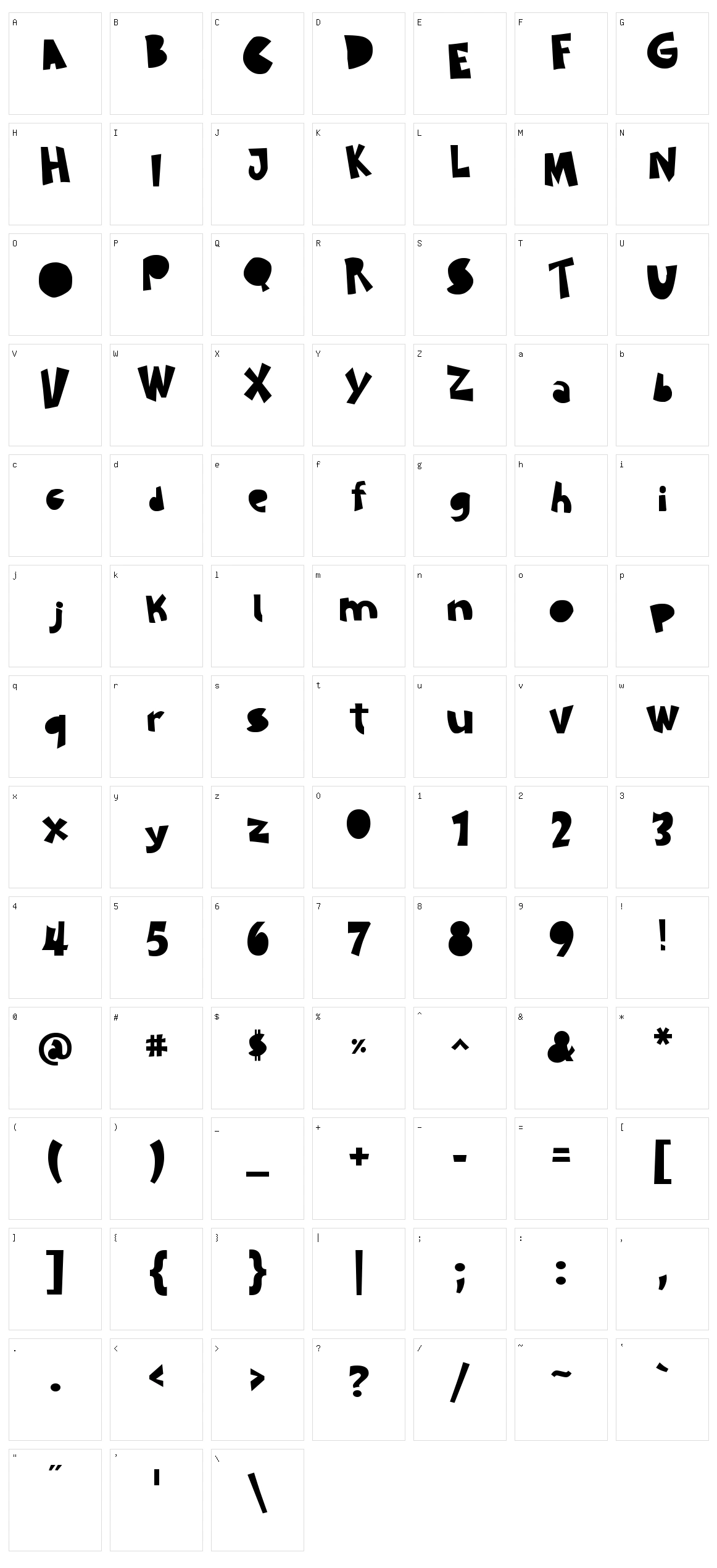
The free font Sustainable Amazon is carefully designed by Galdino Otten Fonts, showcasing a thoughtful balance of creativity and usability and falls under the Cartoon font style. When you download the ZIP file, it contains only 70.45 KB of font files, making it lightweight and quick to download. Please review the license details below to understand permitted usage and distribution rights. If license information is not available, we recommend using this font for personal projects only or contacting the author directly for commercial usage permissions.